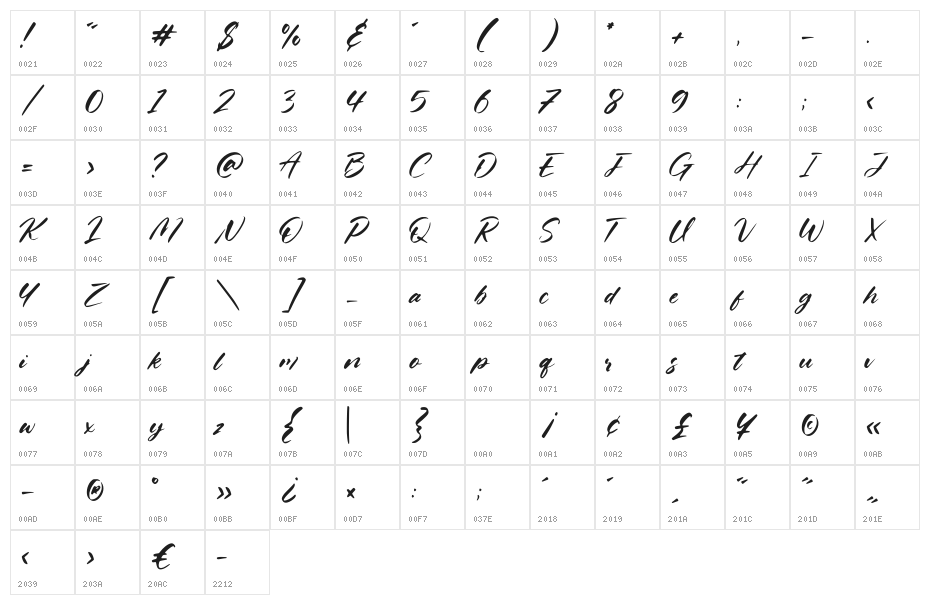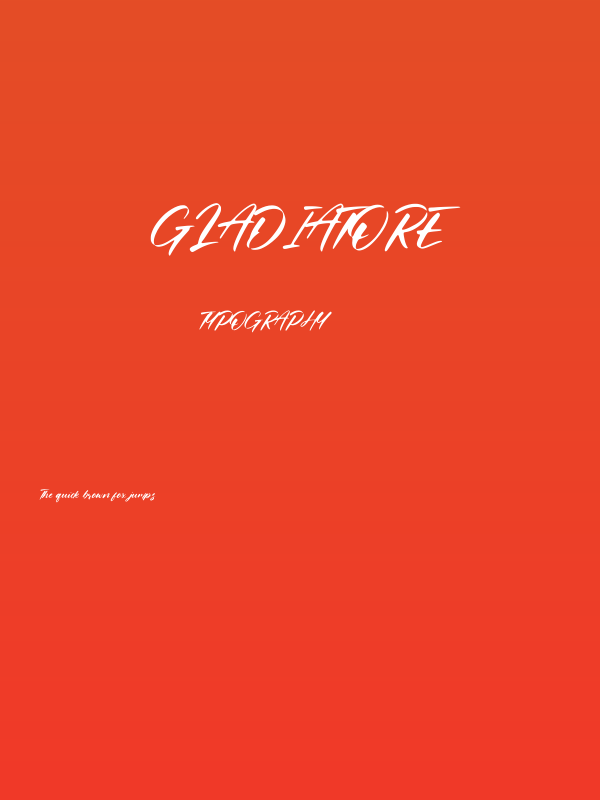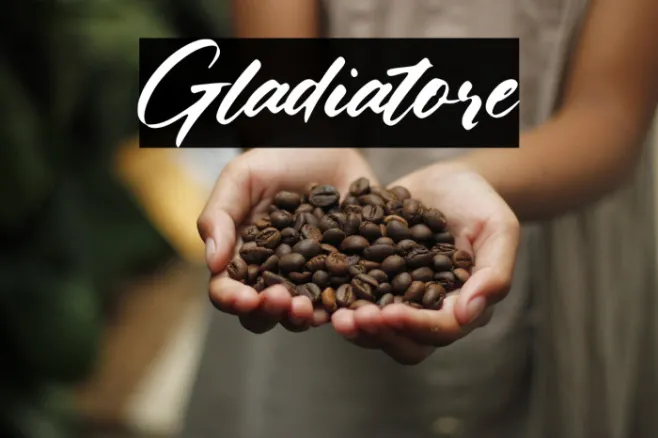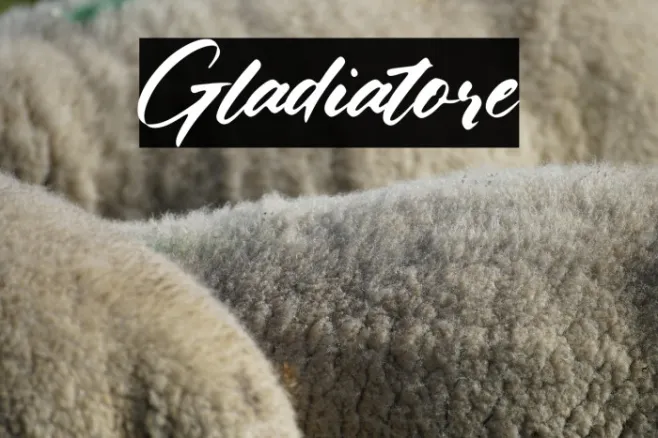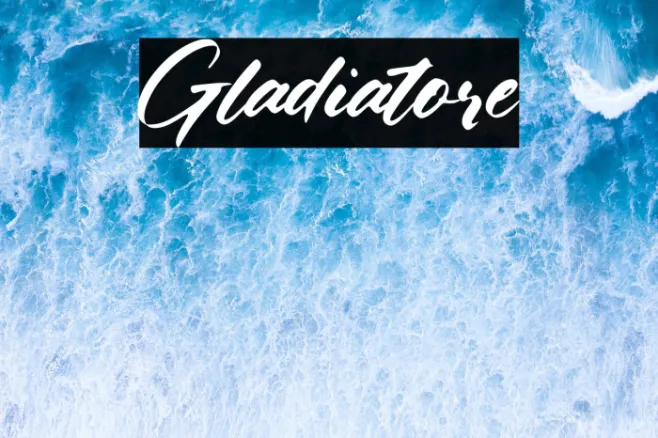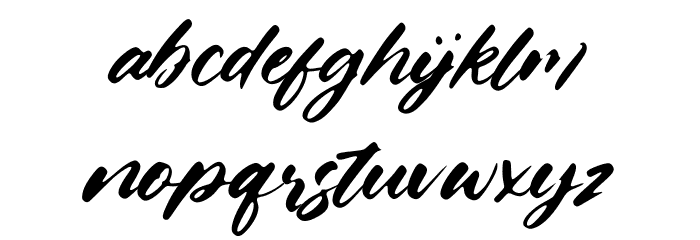
Gladiatore Font
Gladiatore Description
This font exudes a dynamic and expressive style, characterized by its fluid, cursive script. The letters are elegantly connected, creating a sense of movement and flow. The strokes are bold and confident, with a slight slant that adds to the overall sense of motion. The uppercase letters are particularly striking, with sweeping curves and dramatic flourishes. The lowercase letters maintain a consistent rhythm, enhancing readability while preserving the artistic flair. Numbers and special characters are crafted with the same attention to detail, ensuring a cohesive look across all elements.